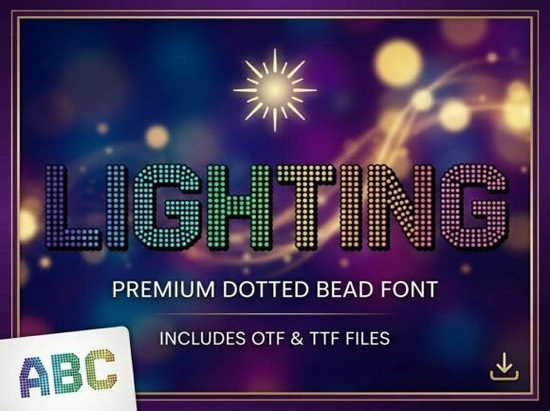
Lighting Font is a standout choice for anyone looking to add a touch of drama and elegance to their design projects. This unique display typeface brings a sense of energy and sophistication, making it ideal for a variety of creative applications. Whether you're working on event logos, promotional materials, or branding elements, Lighting Font can help you make a bold statement.
Designed with a focus on visual impact, Lighting Font features heavy, blocky all-caps letterforms that are crafted from thousands of tiny, perfectly aligned dotted beads. These details create a shimmering effect that mimics the look of marquee lights and luxury rhinestones. The result is a font that feels both retro and modern, blending the charm of old-time entertainment posters with the sleekness of contemporary branding.
If you're exploring display fonts for your next project, Lighting Font stands out for its versatility. It works well in a range of formats, from print to digital media. Its halftone texture adds depth and dimension, making it perfect for high-impact designs that need to grab attention. For designers and small businesses looking to elevate their visual identity, this font offers a fresh and eye-catching option.
What Makes Lighting Font Unique?
One of the most notable aspects of Lighting Font is its intricate design. Each letter is built using a pattern of dots that create a sparkling, almost 3D appearance. This detail makes the font feel dynamic and visually engaging, which is especially useful for projects that require a strong visual presence. The font’s structure also gives it a substantial weight, making it suitable for headings, logos, and other prominent design elements.
Lighting Font is particularly effective when used in contexts that benefit from a luxurious or theatrical vibe. Think of event planners needing a logo that stands out, or nightclub owners looking for signage that commands attention. The font’s ability to bridge retro and modern styles makes it adaptable across different industries and design aesthetics.
Best Uses for Lighting Font
Lighting Font is ideal for a wide range of creative purposes. Here are some common applications:
- Event Logos: Perfect for independent event planners who want a distinctive brand identity.
- Theatrical Flyers: Adds a dramatic flair to promotional materials for festivals and performances.
- Custom Signage: Great for nightclub or boutique branding where visual impact is key.
- Luxury Apparel Labels: Provides an upscale look for high-end fashion items.
- Social Media Headers: Makes your content stand out on platforms like Instagram and Facebook.
Whether you're designing for print or digital use, Lighting Font offers a level of detail and style that can enhance your work. Its unique characteristics make it more than just a font it's a design tool that can help you communicate your vision more effectively.
How to Use Lighting Font Effectively
To get the most out of Lighting Font, consider the following tips:
- Use it for headlines: The font’s striking appearance makes it best suited for large text, such as titles and banners.
- Pair it with simpler fonts: Balance the complexity of Lighting Font with a clean, readable typeface for body text.
- Test it in different sizes: Ensure the font remains legible and impactful at various scales.
- Experiment with color: The halftone texture can interact with background colors in interesting ways.
By thoughtfully integrating Lighting Font into your designs, you can create visuals that are both striking and professional. Its combination of texture, weight, and style makes it a valuable addition to any designer’s toolkit.
Lighting Font is a powerful tool for any designer looking to add a unique and eye-catching element to their work. With its blend of retro charm and modern appeal, it’s a great choice for a wide range of creative projects.
Before finalizing your design, take a moment to review how Lighting Font looks in different contexts. Test it with your branding elements and ensure it aligns with your overall aesthetic. This simple step can make a big difference in the final outcome of your project.